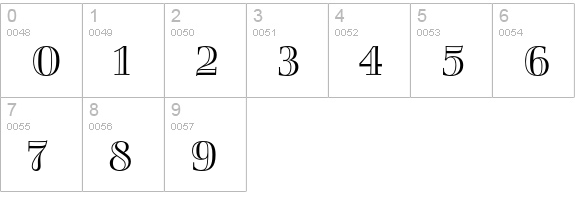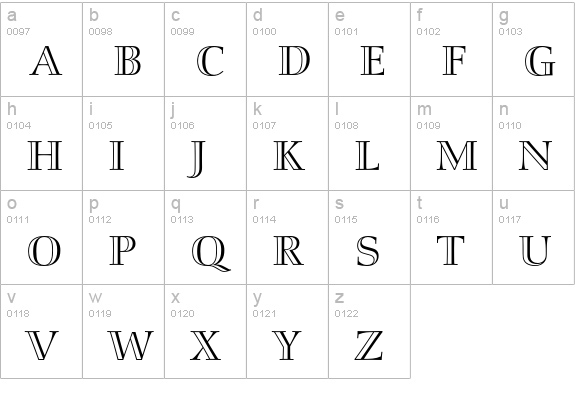
Smaragd Font Details
Introducing Smaragd, a stunning font that effortlessly combines elegance and modernity. With its sleek lines and delicate curves, Smaragd captures attention with its graceful presence. This font is perfect for any design project that requires a touch of sophistication. What sets Smaragd apart is not just its impeccable design, but also its availability. Unlike many other fonts on the market, Smaragd is completely free. That's right, you can download this incredible font without spending a dime. Thanks to FontsMarket.com, Smaragd is easily accessible to anyone in need of a high-quality typeface. Whether you're designing a logo, creating a brochure, or crafting a website, Smaragd will elevate your project to new heights. Its versatility allows it to adapt to various styles and aesthetics, making it a versatile choice for designers of all backgrounds. The attention to detail in Smaragd is truly remarkable. Each letter has been meticulously crafted to ensure perfect balance and readability. The smooth curves and clean lines create a harmonious flow that is pleasing to the eye. Smaragd's legibility is unparalleled, making it an ideal choice for both headlines and body text. With its timeless appeal, Smaragd is a font that will never go out of style. It exudes an air of sophistication and refinement that is sure to leave a lasting impression. Whether you're designing for a corporate brand or a high-end fashion label, Smaragd will elevate your project to new levels of elegance. So why wait? Experience the beauty of Smaragd for yourself. Head over to FontsMarket.com and download this exquisite font for free. Let Smaragd be the secret weapon in your design arsenal, adding a touch of elegance and class to all your creations.